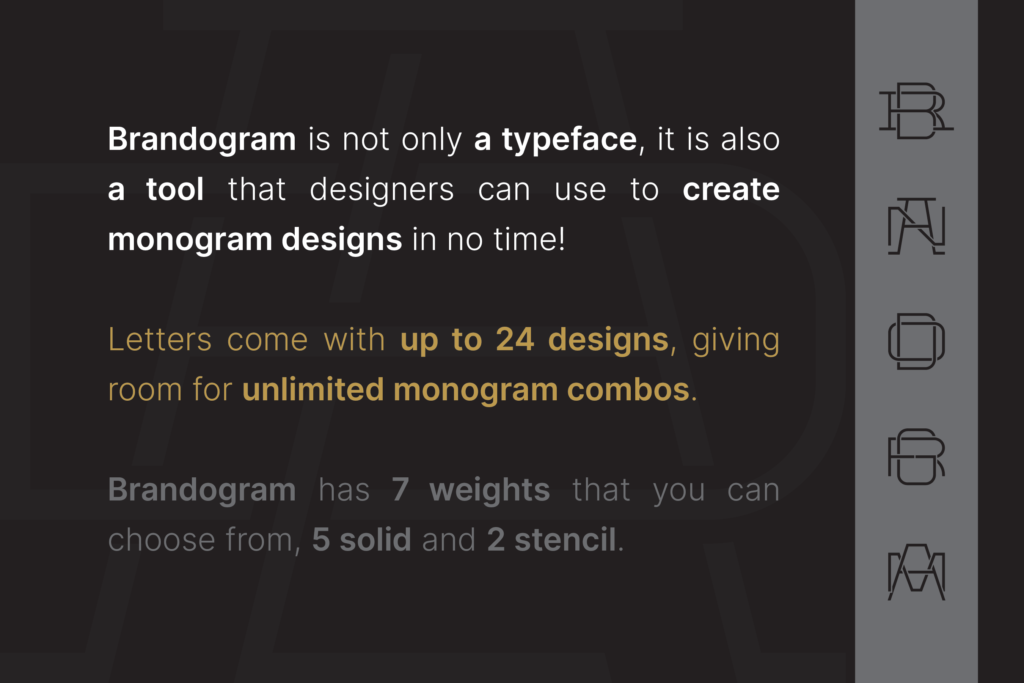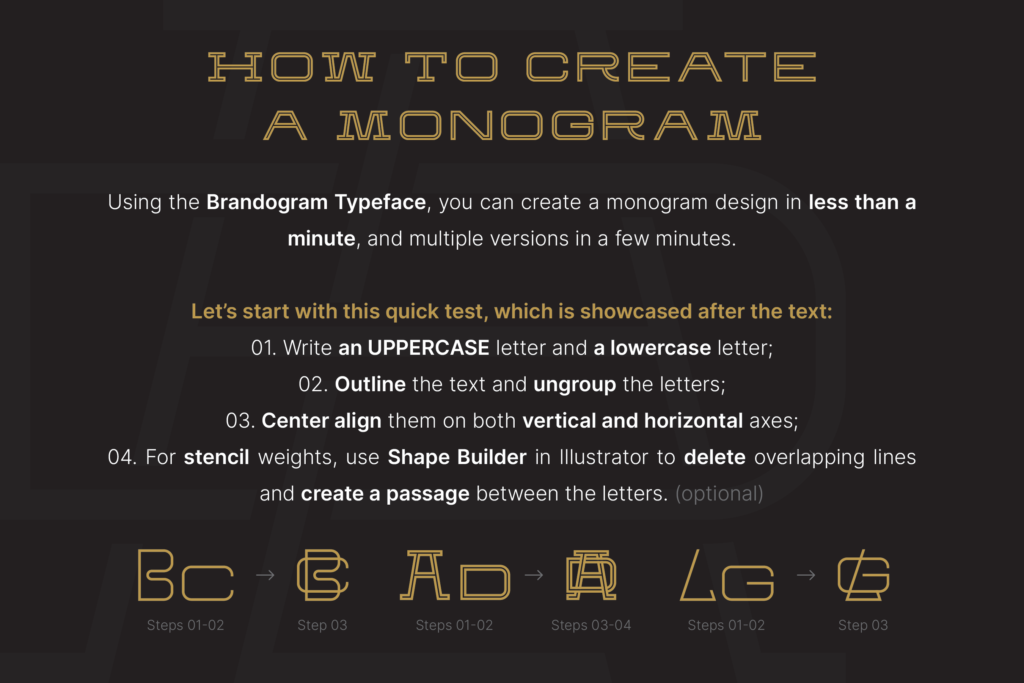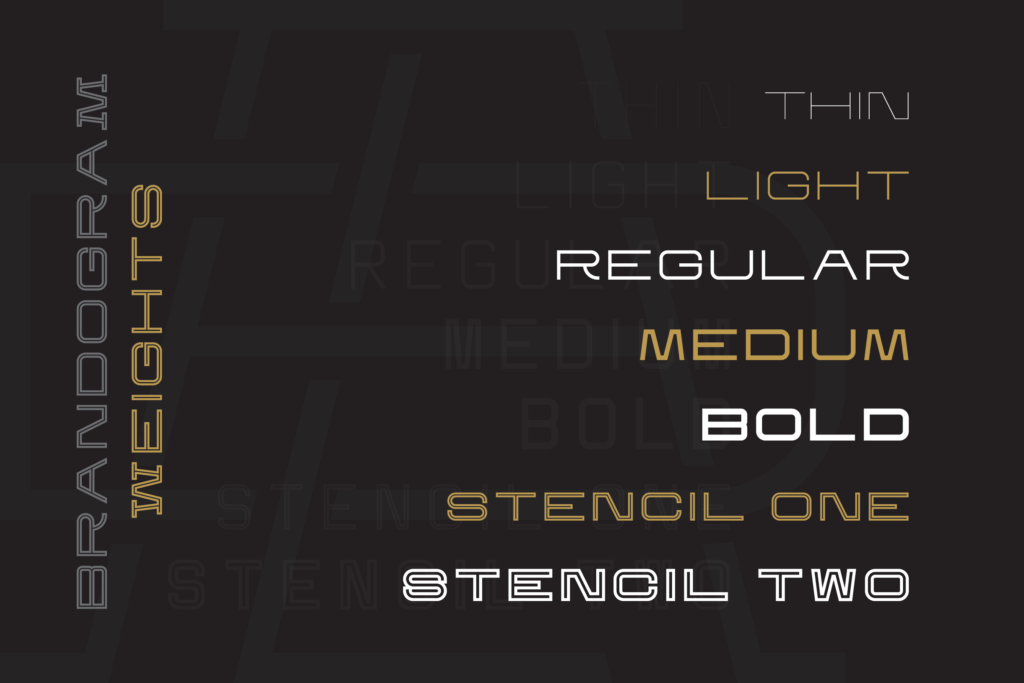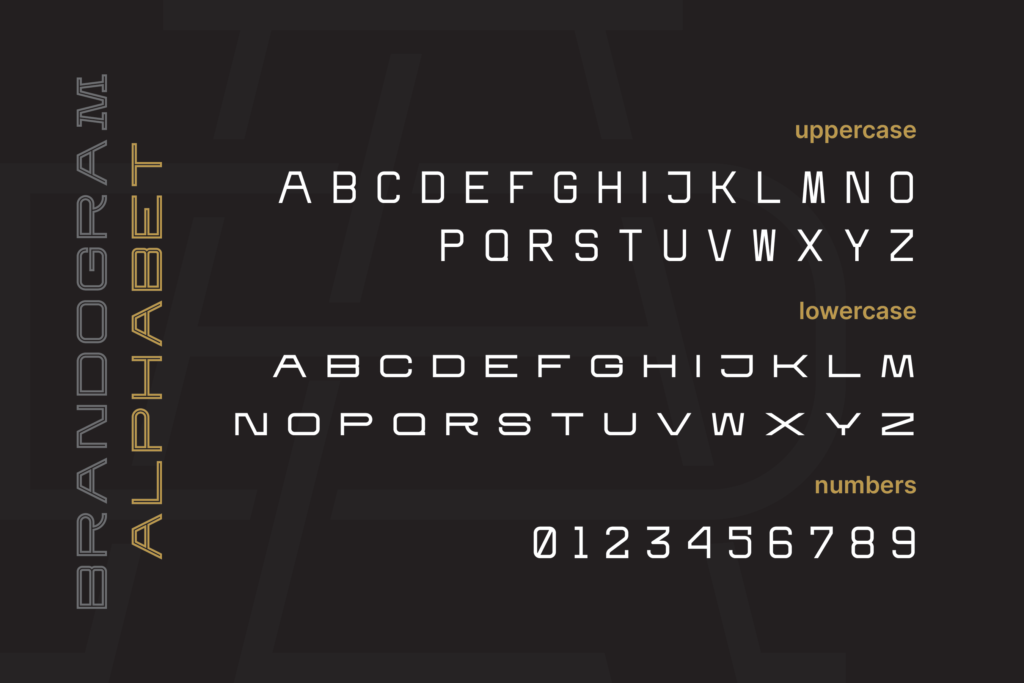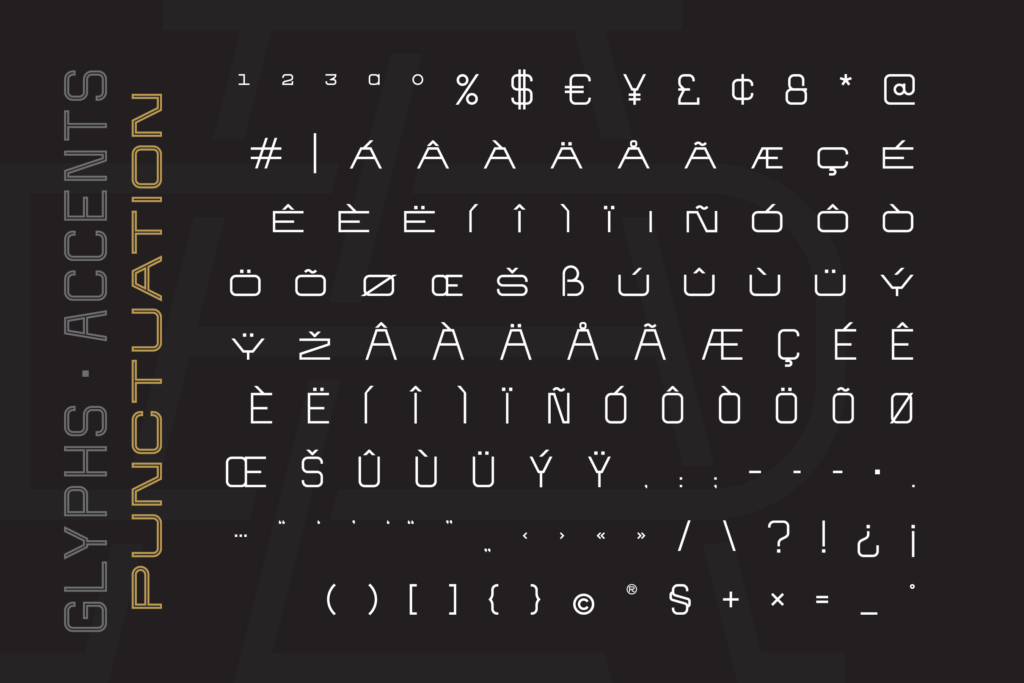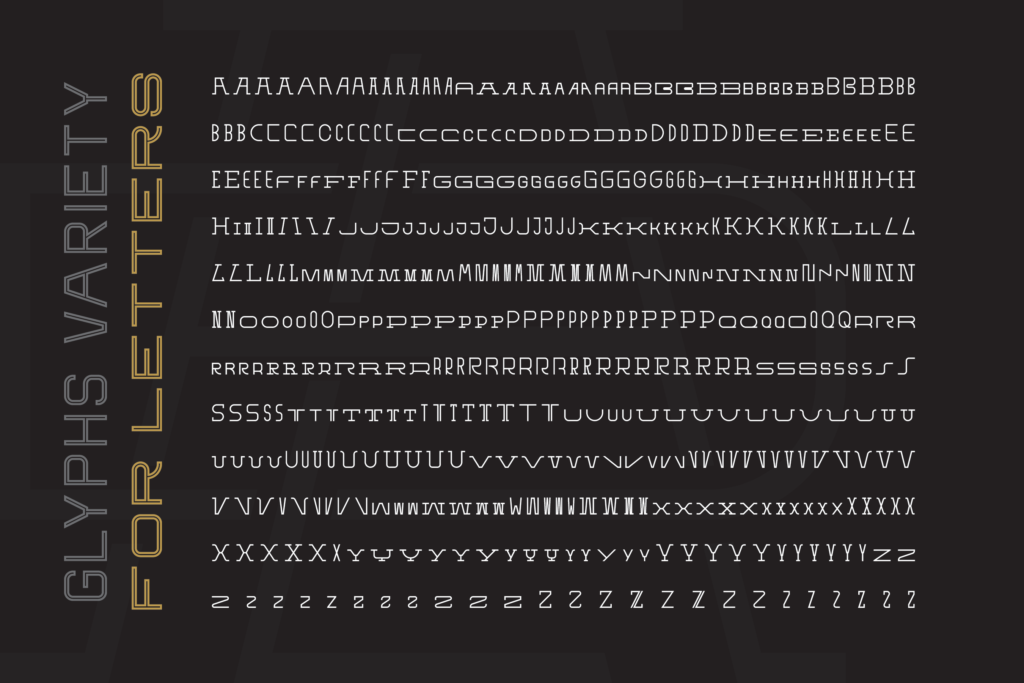
Brandogram Typeface
Brandogram Typeface is a collection of 7 fonts, each including a mix of serif and sans-serif letters, fully optimised for quick development of monogram designs.
The 7 fonts are for different weights: Thin, Light, Regular, Medium, Bold and 2 stencil weights. Each weight includes up to 24 different designs per letter, in Caps and small-Caps (no lowercase letters included - not fit for monograms).
Using the Brandogram typeface you can create unlimited monogram combos with 2, 3 or even 4 letters in some cases. Spending some time playing with the weights, spacing, letter combos, strokes, depth and so on, will do wonders for you, your business, your clients and their businesses.
I'll soon launch a line script style of Brandogram, optimised to flow perfectly with the Regular style.